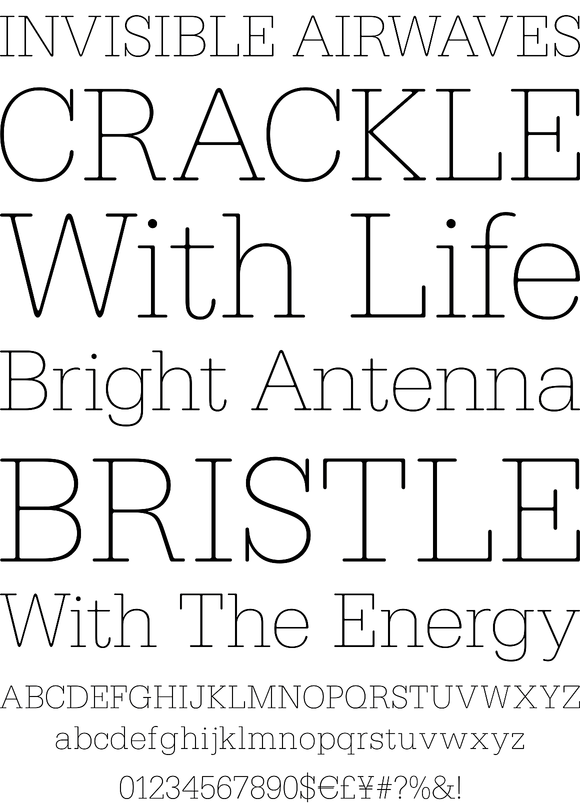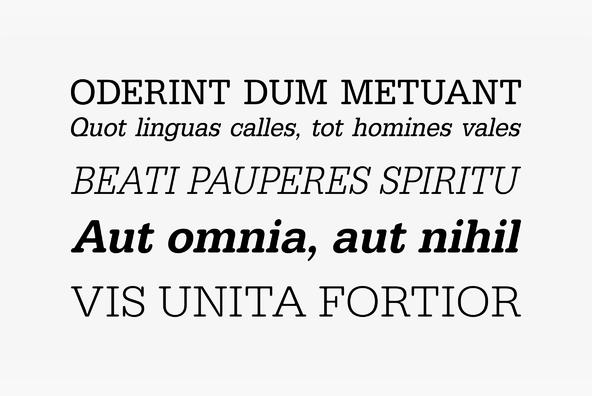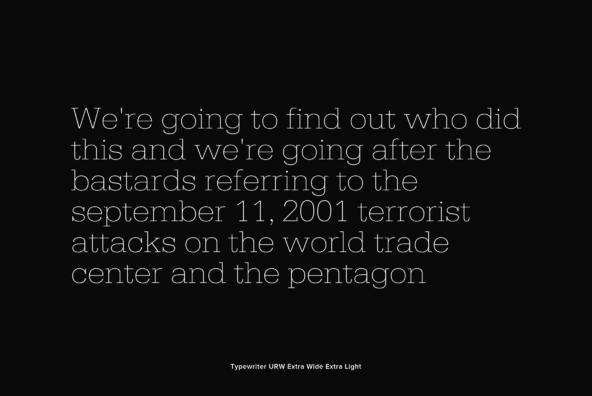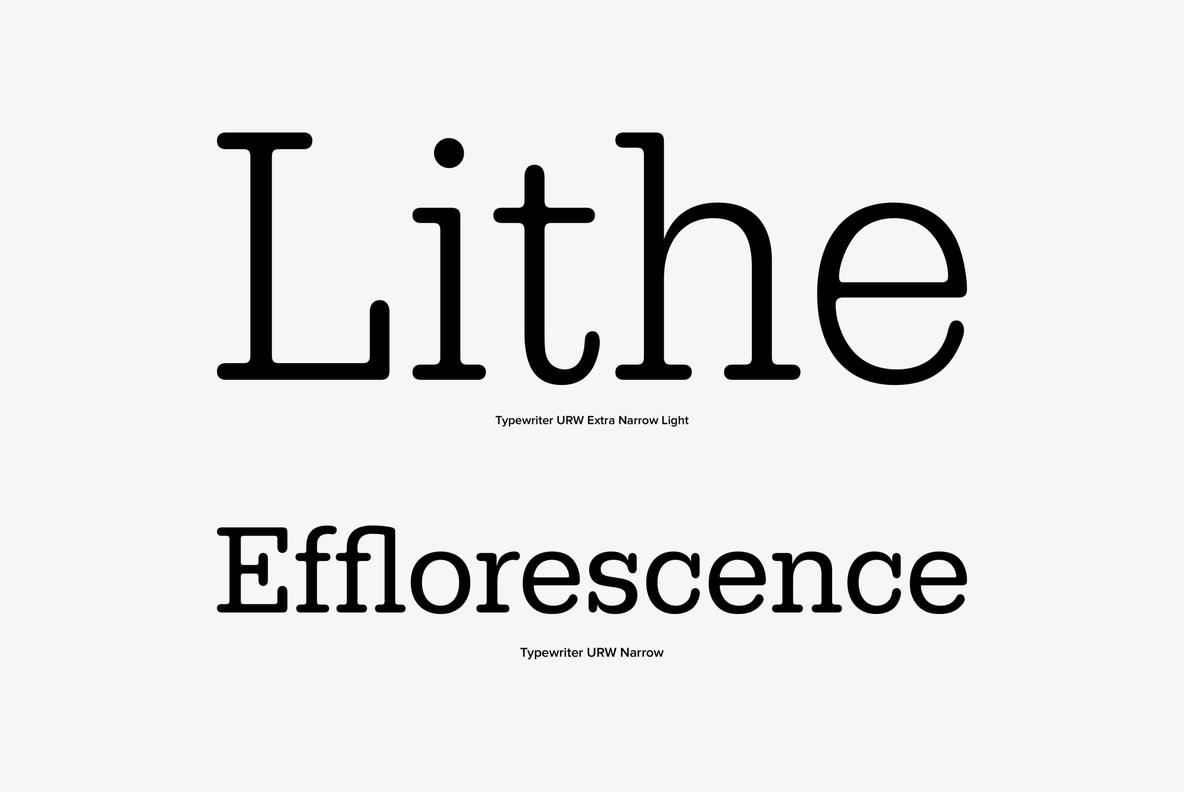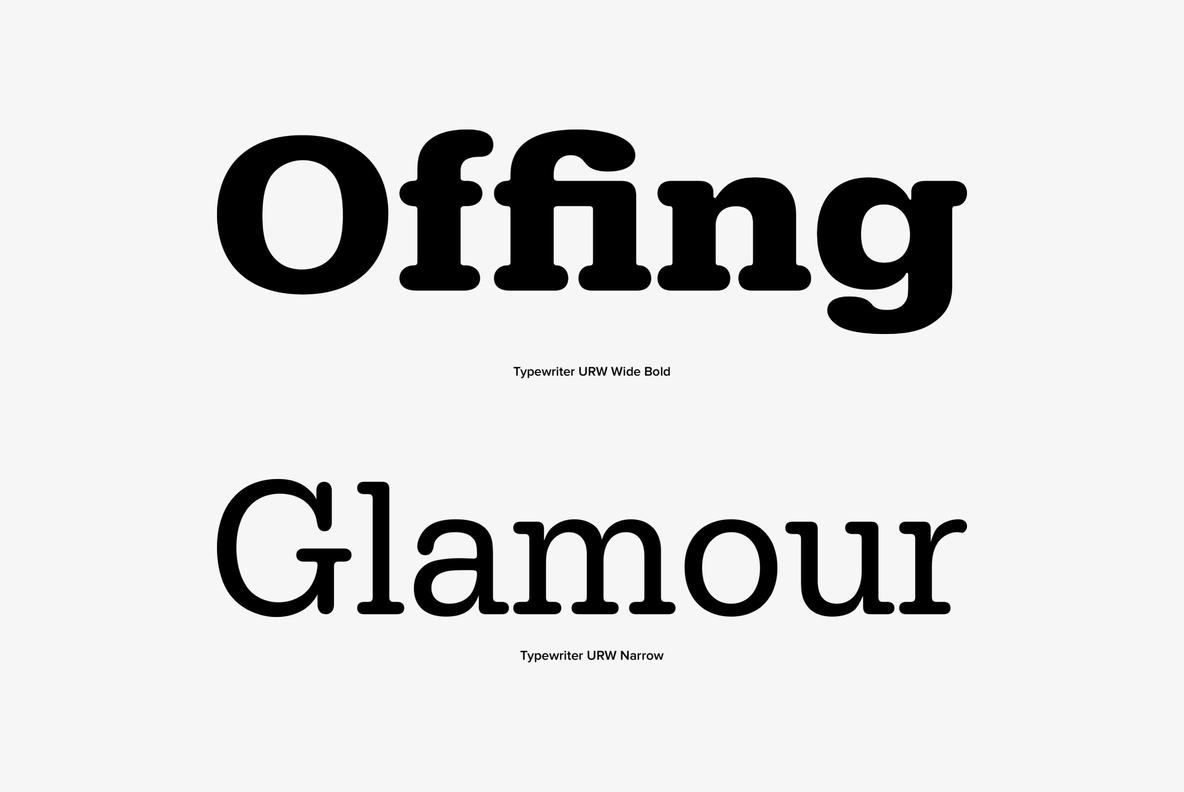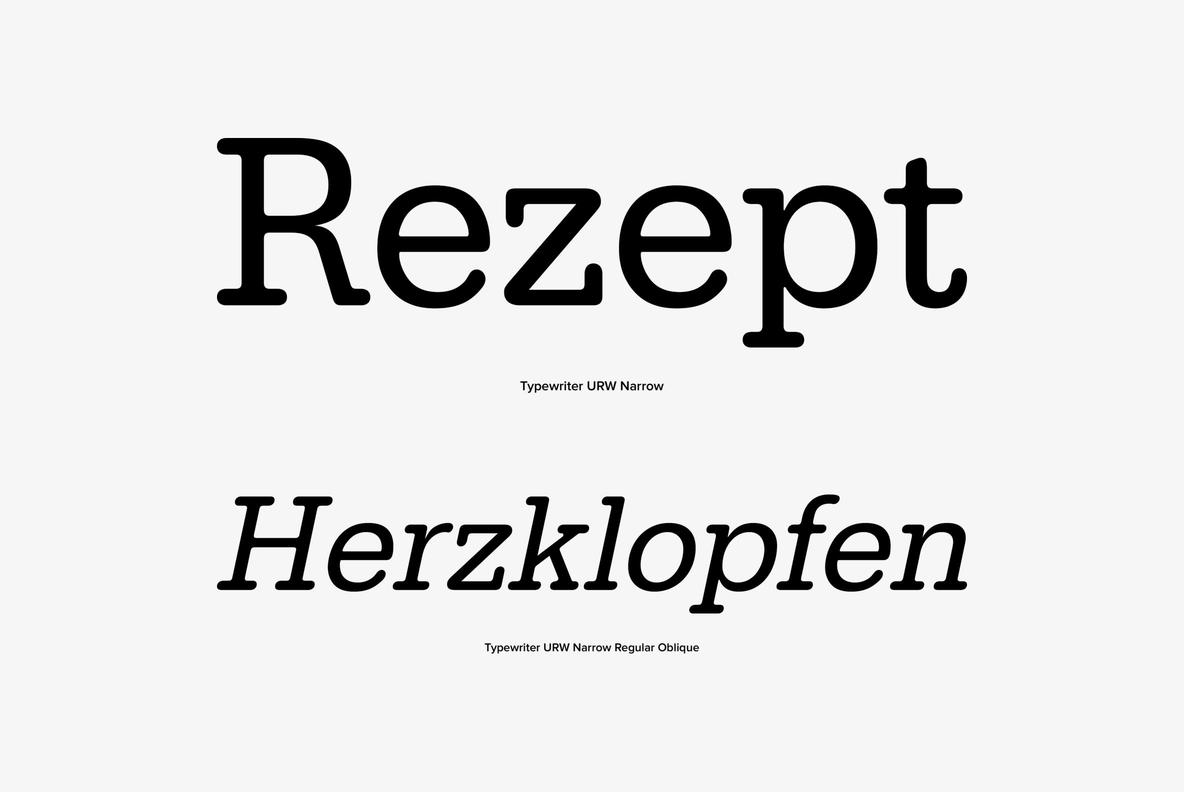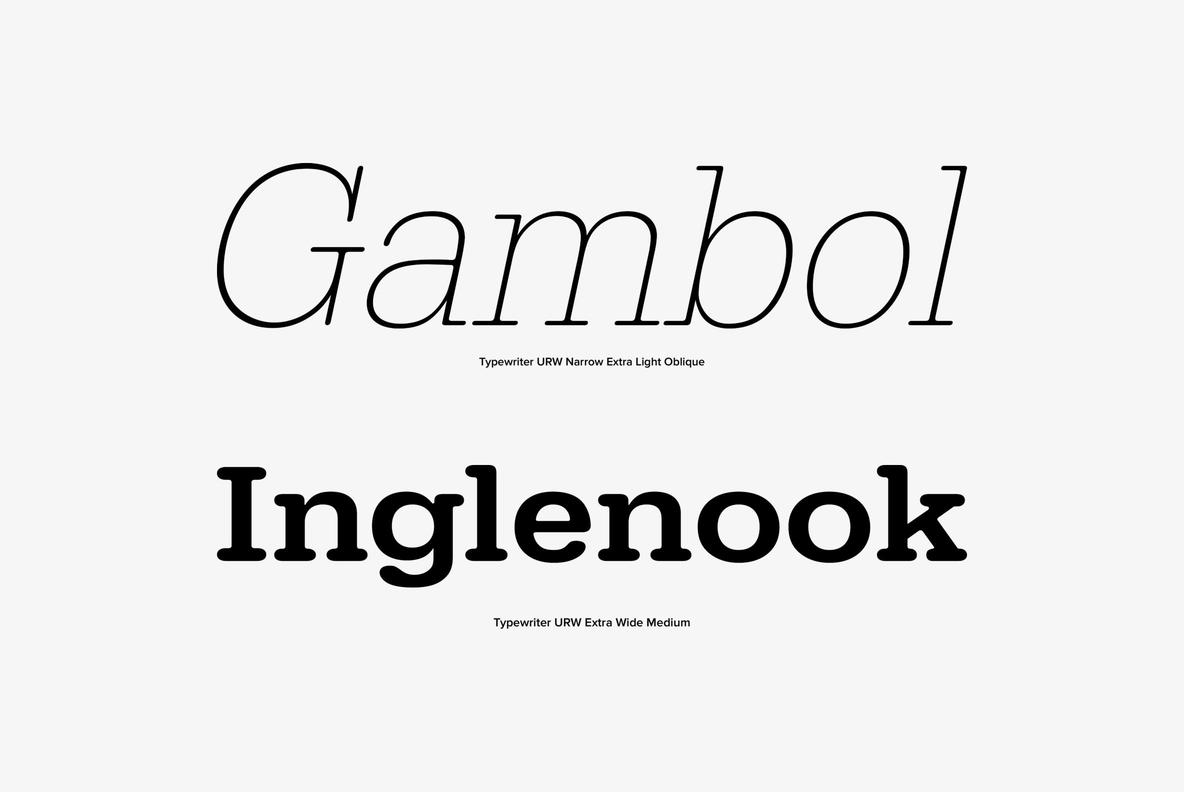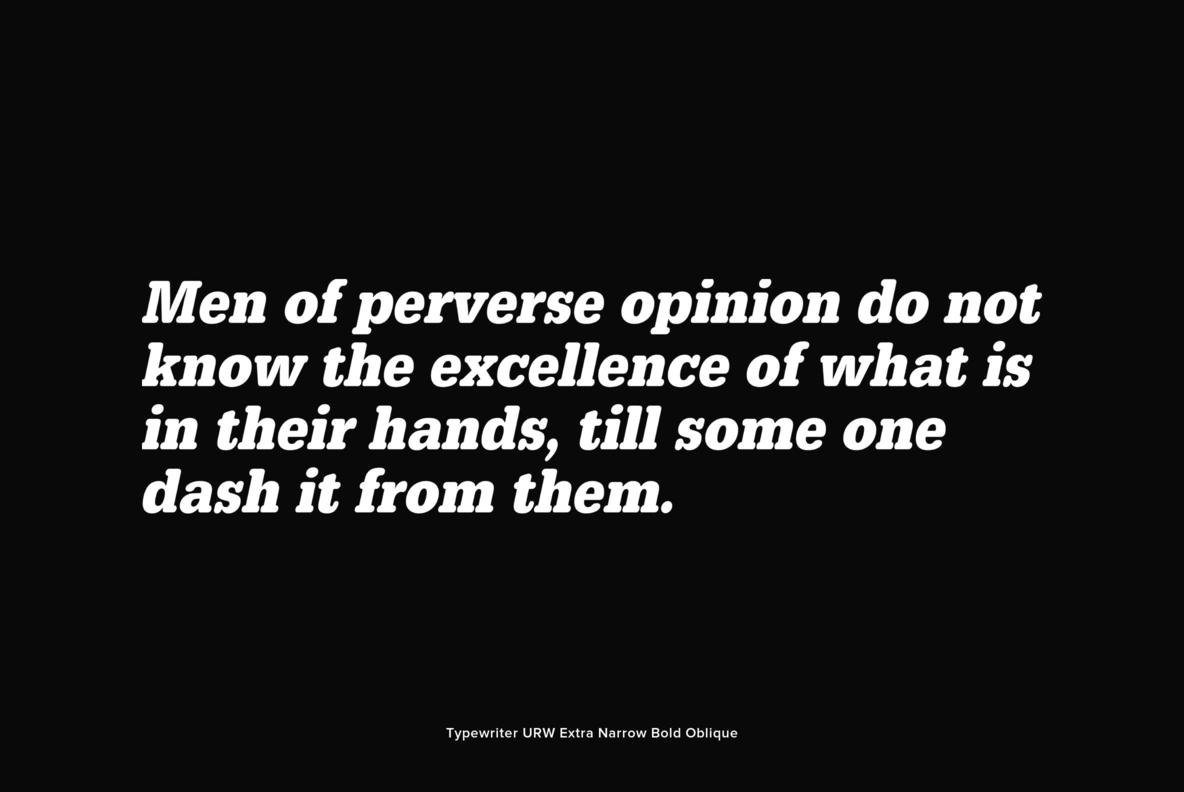
Designed by URW Studio in 1994, URW Typewriter is a classic, full featured and well executed typewriter styled serif design.
Designed by URW Studio in 1994, URW Typewriter is a classic, full featured and well executed typewriter styled serif design. With 50 different styles in the complete family, URW Typewriter is one burl of a slab serif family that all design studios must have in their type collection.